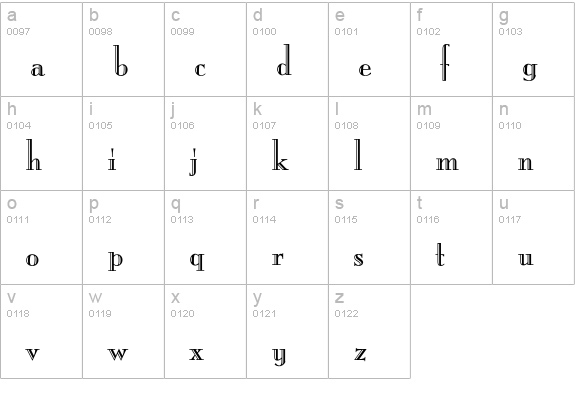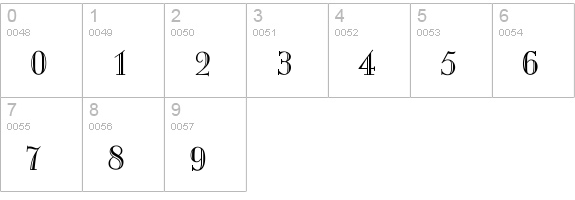
Introducing OPTIMargueritte font, a stylish and elegant typeface that exudes sophistication and charm. With its delicate curves and unique design, OPTIMargueritte is perfect for adding a touch of class to any project. This versatile font is ideal for a wide range of applications, from branding and advertising to invitations and social media graphics. What sets OPTIMargueritte apart is not only its beauty but also its accessibility. This stunning font is available for free download at FontsMarket.com, making it easy for anyone to add a touch of elegance to their designs. Whether you're a seasoned designer or just starting out, OPTIMargueritte is sure to impress with its timeless appeal and effortless style. Don't miss out on the opportunity to elevate your projects with the exquisite OPTIMargueritte font. Download it today and discover the endless possibilities for creating stunning visuals that stand out from the crowd.